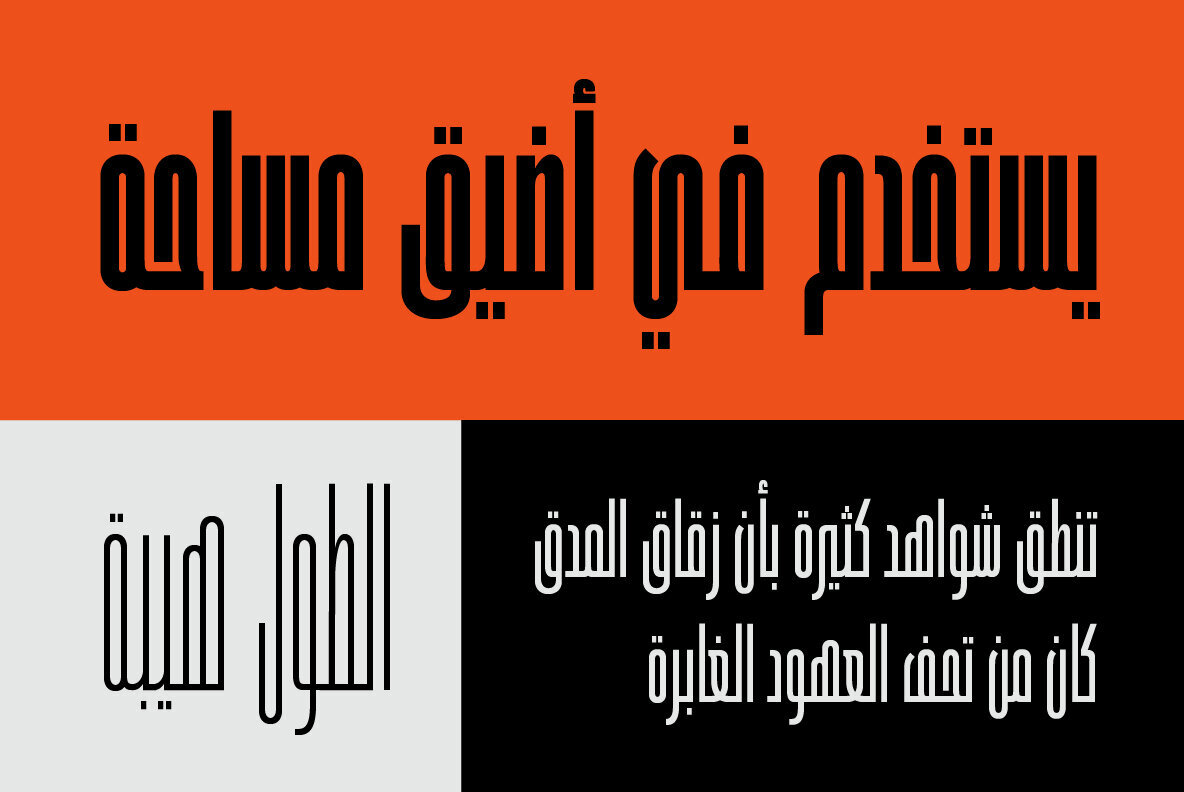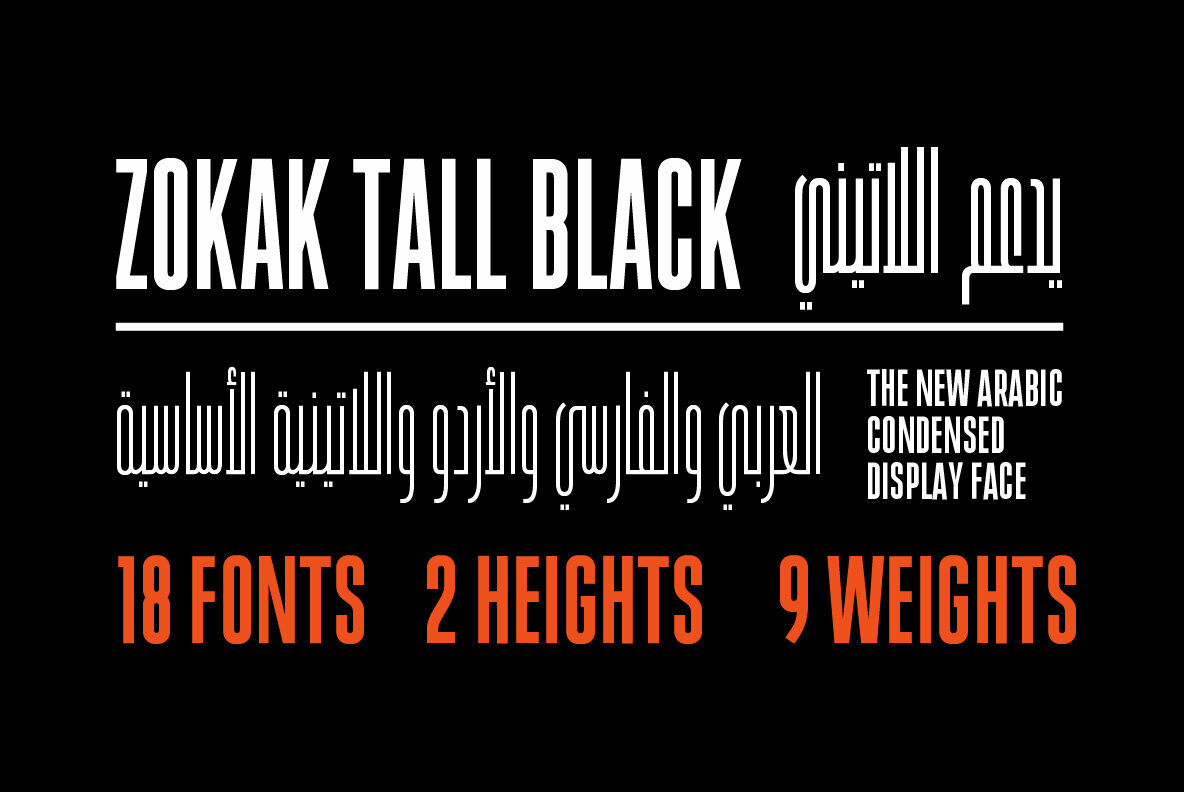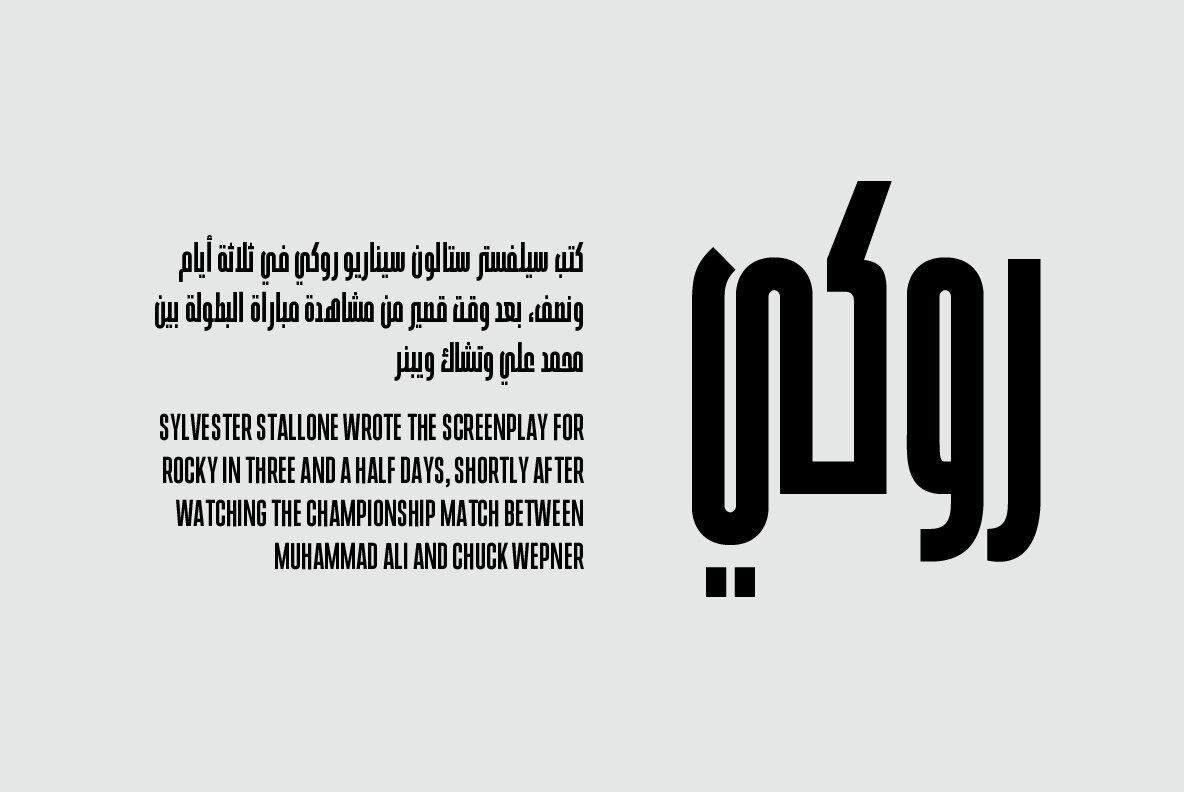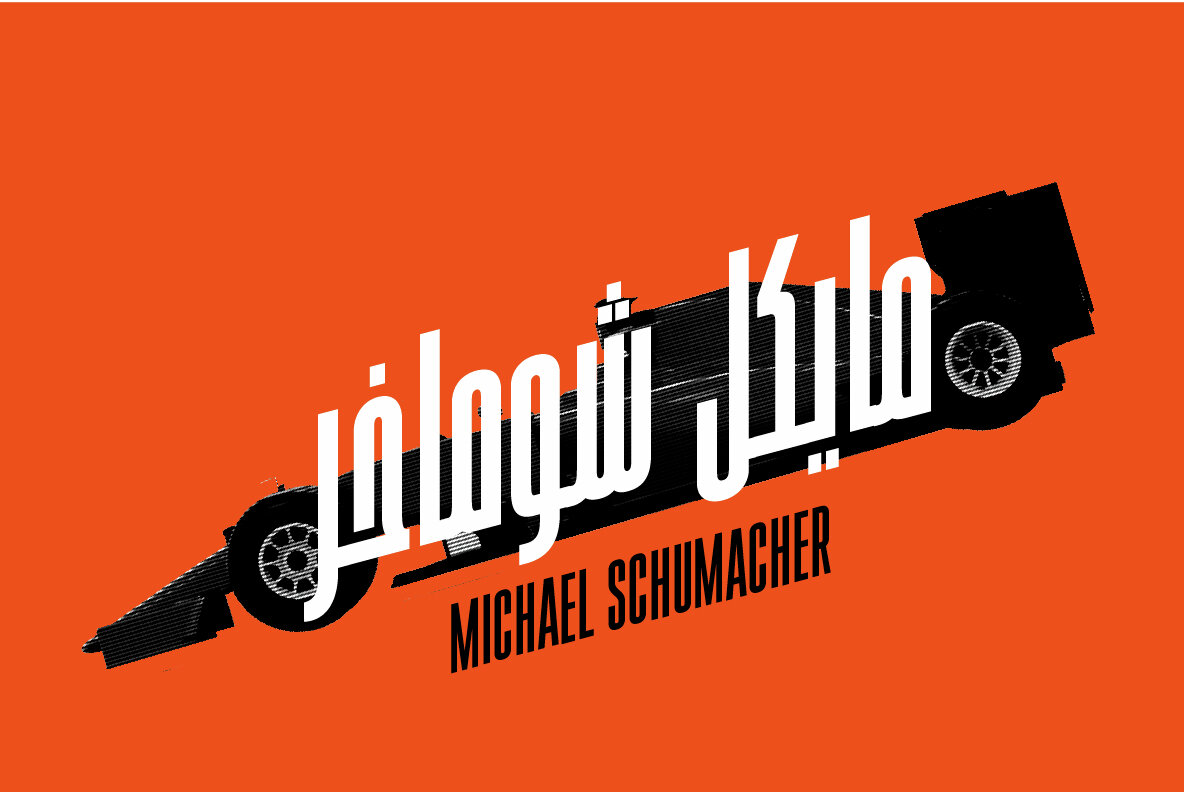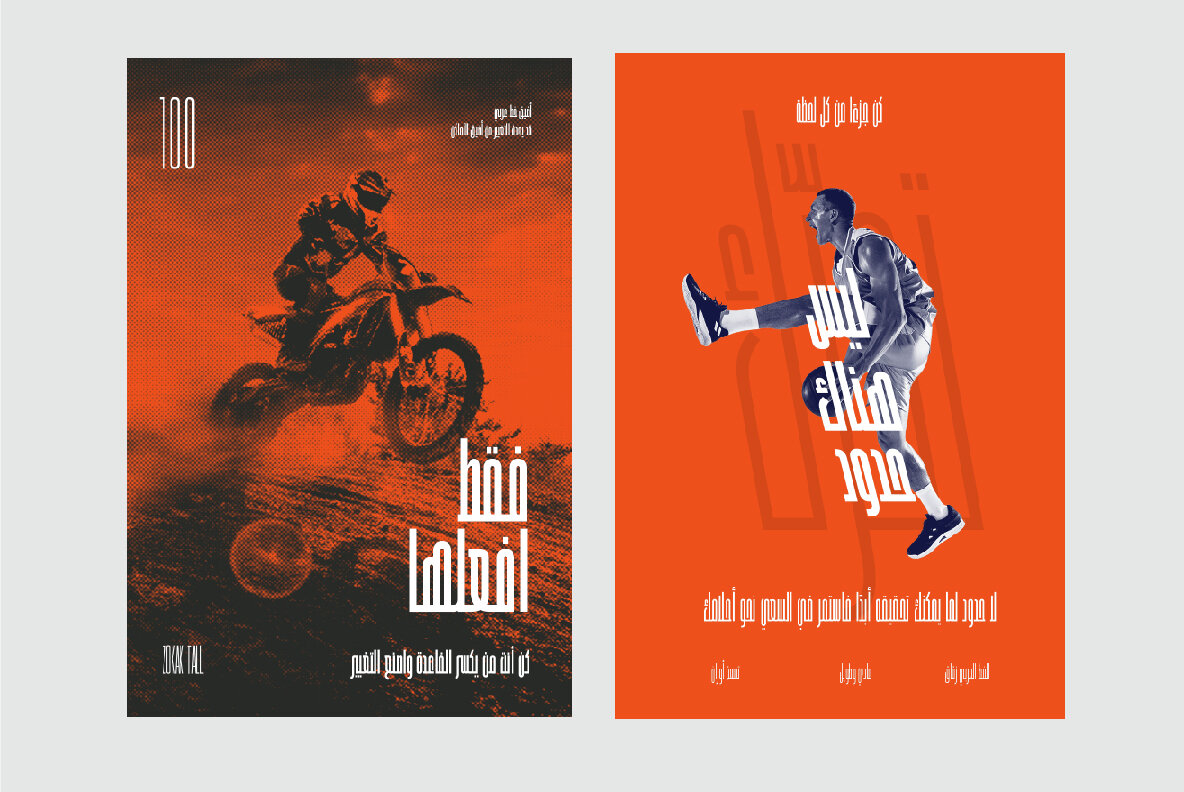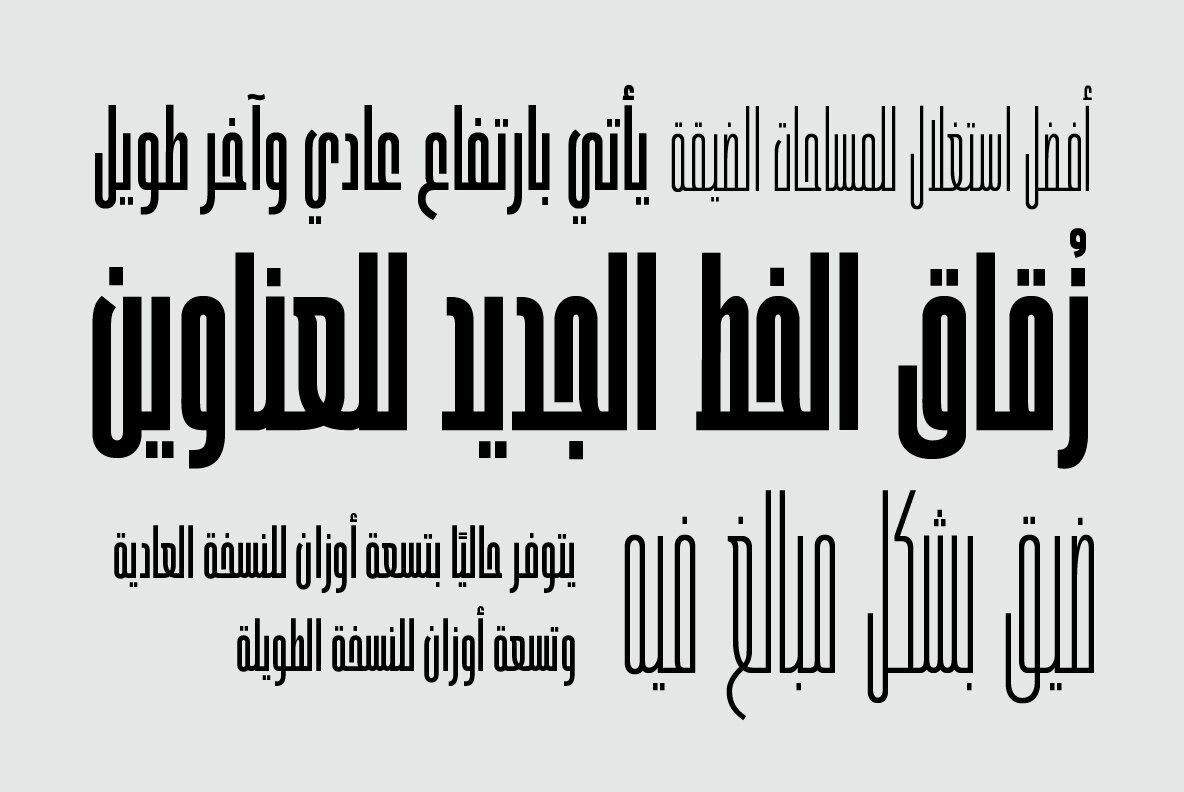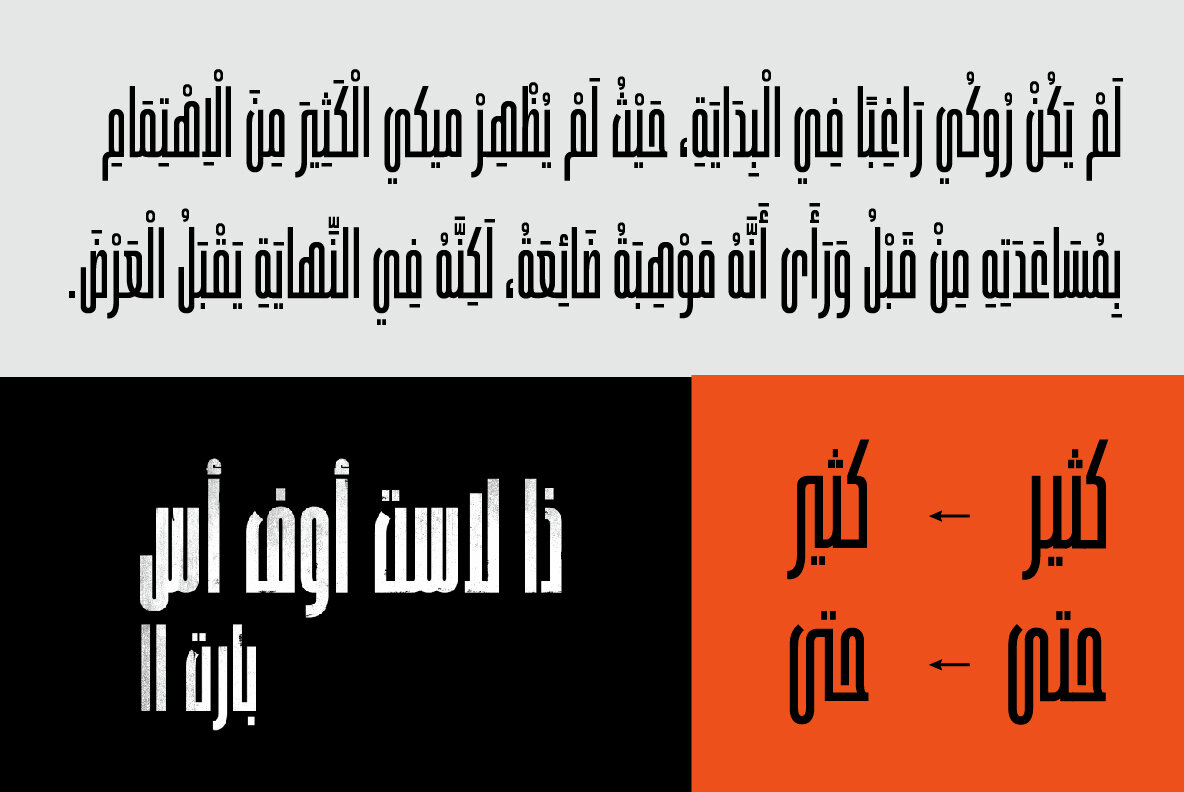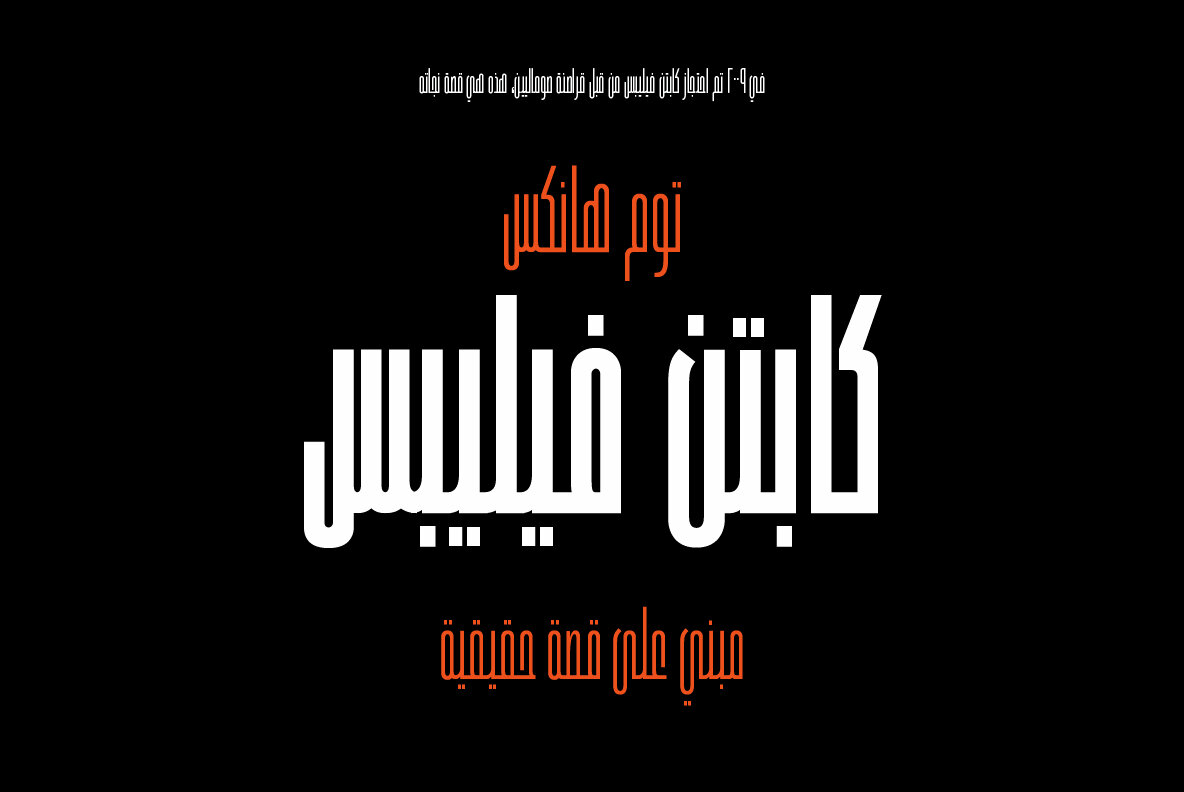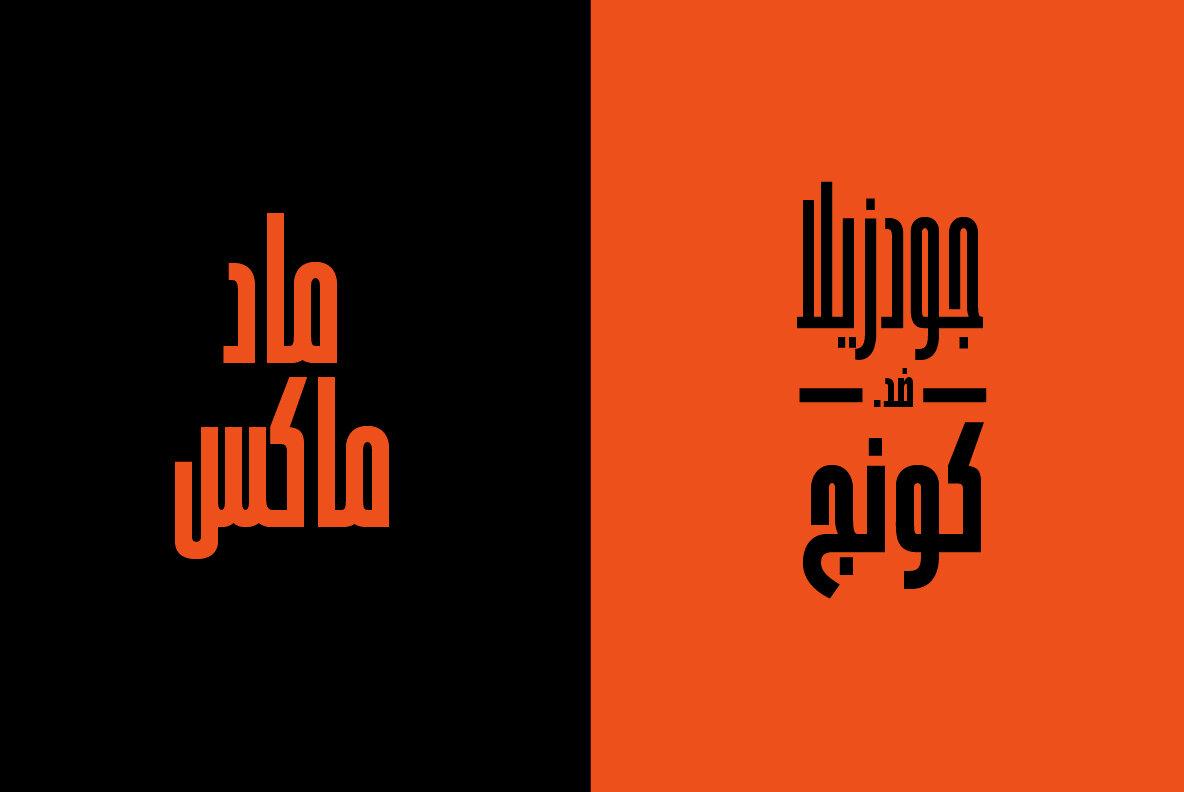
Zokak Font
Zokak is a first-of-its-kind ultra condensed Arabic typeface designed for display uses. The name means an alley in Arabic which comes from its very narrow letters, which makes it perfect in small spaces.
Zokak has two main styles, the default style and the tall one to give more diversity and to be suitable for more uses.